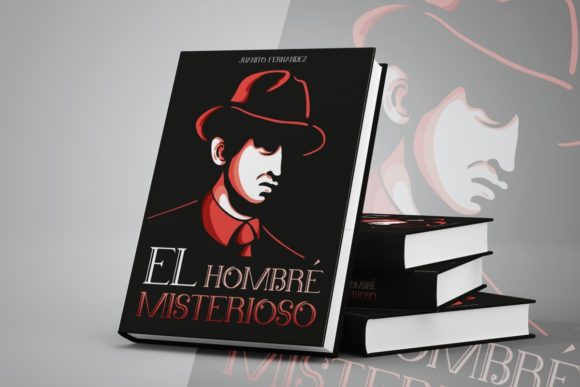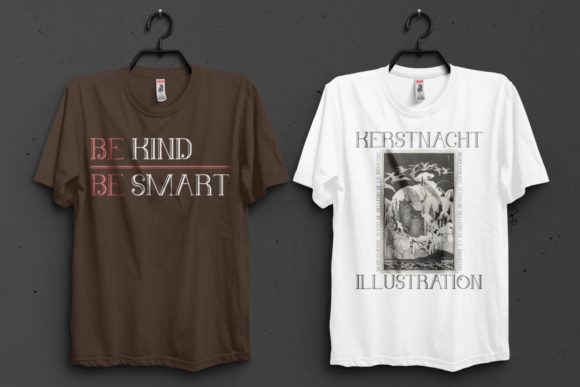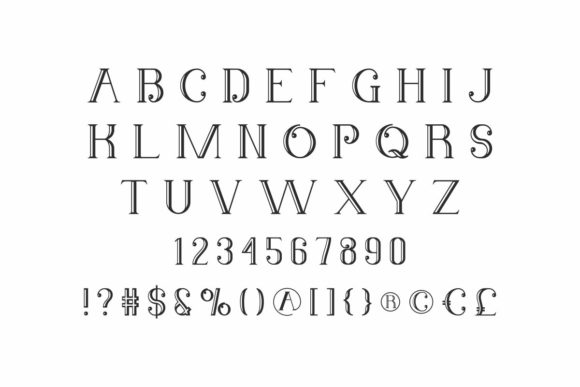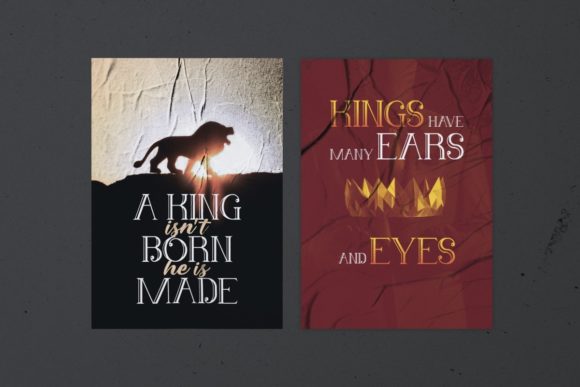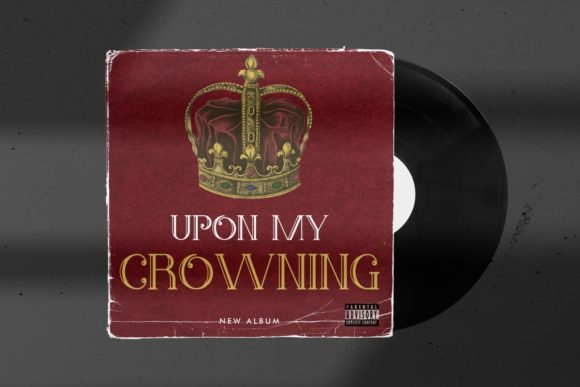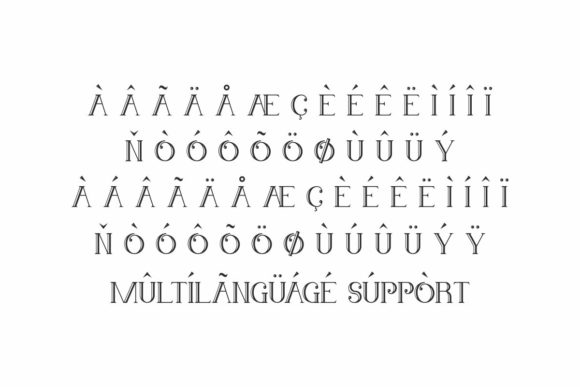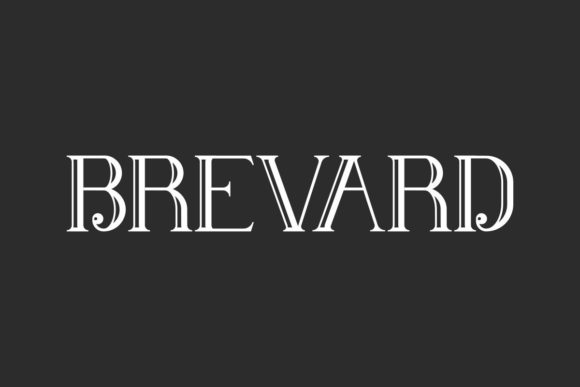
The Power of Brevard Font: A Designer’s New Best Friend
I’ll never forget the time I was working on a branding project for a luxury hotel, and I just couldn’t find the right font to capture the essence of their high-end experience. The client wanted something classic, yet assertive; elegant, yet attention-grabbing. That’s when I stumbled upon the Brevard font, and let me tell you, it was love at first sight! 💕
This classic and assertive display font has been a game-changer for my designs, and I’m excited to share its awesomeness with you. In this article, we’ll dive into the world of Brevard font, exploring its features, how to use it, and some similar fonts you might love.
So, what makes Brevard font so special? Here are a few things I absolutely love:
- ✨ Unique letterforms that add a touch of sophistication to any design
- ✅ Highly legible, even at large sizes
- 💪 Assertive and confident, perfect for making a statement
- 🎨 Highly versatile, suitable for a wide range of creative projects
Now, I wouldn’t be honest if I didn’t mention a few quirks:
- 🤔 Some users might find the font a bit too bold for certain designs
- ⚠️ Limited availability of certain OpenType features
If you love Brevard font, you might also enjoy these similar fonts:
- Playfair Display: A elegant and refined font with a similar classic feel
- Montserrat: A modern sans-serif font with a strong, assertive personality
- Didot: A luxurious and sophisticated serif font perfect for high-end designs
- Bebas Neue: A bold and modern font with a similar energetic vibe
The Designer Inspiration Behind Brevard Font
While the true story behind Brevard font’s creation is unknown, it’s easy to imagine that it was designed with the intention of making a statement. Perhaps the designer wanted to create a font that would evoke a sense of luxury and sophistication, while still being bold and attention-grabbing. Whatever the inspiration, Brevard font has certainly made its mark on the design world.
Q: What type of projects is Brevard font best suited for?
A: Brevard font is perfect for designs that require a classic, yet assertive touch, such as luxury branding, high-end packaging, and elegant editorial designs.
Q: Is Brevard font available in different weights?
A: Brevard font is primarily available as a display font, but some variations may include additional weights or styles.
Q: Can I use Brevard font for digital designs?
A: Absolutely! Brevard font is highly legible on digital screens, making it perfect for website headers, social media graphics, and more.